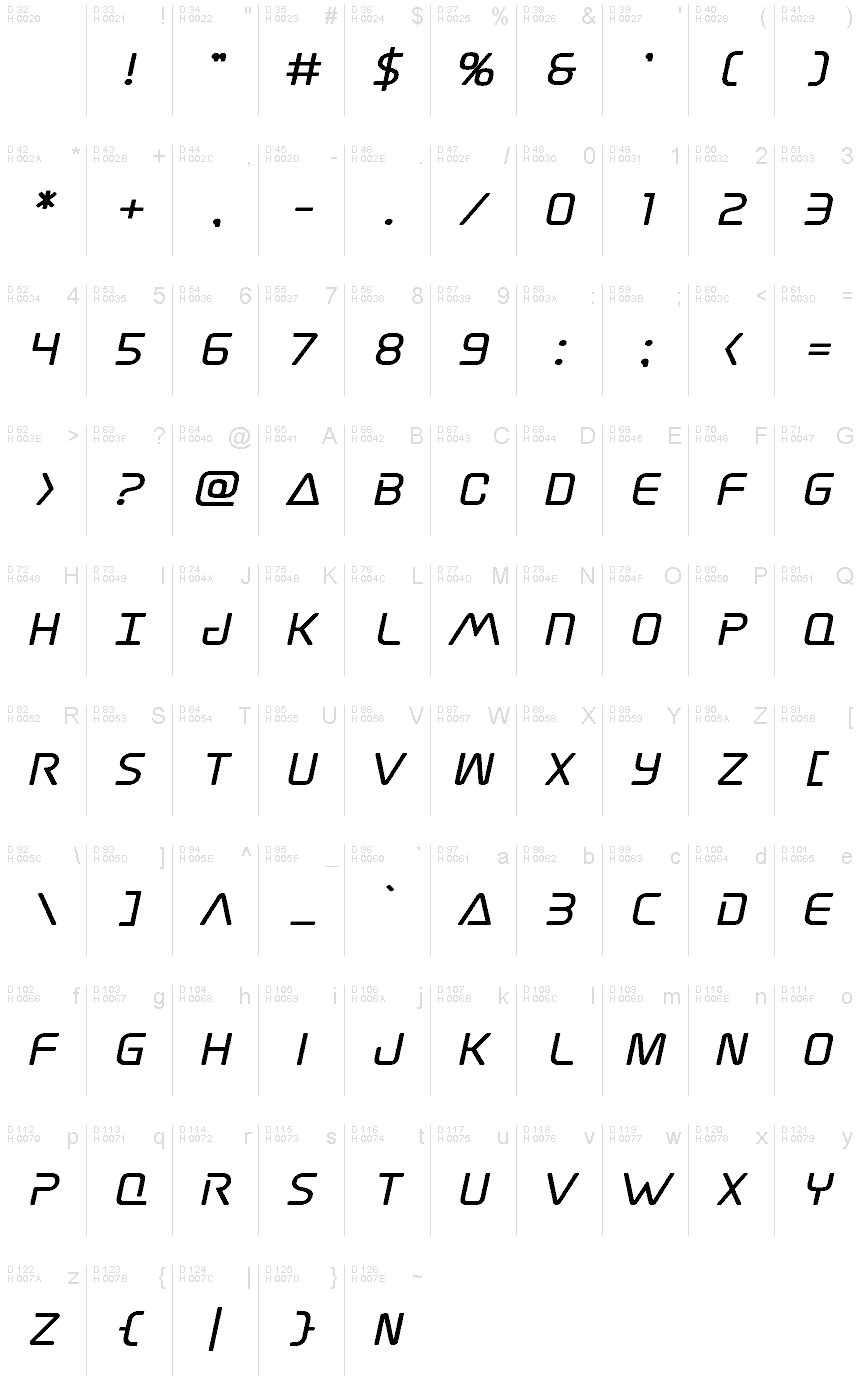
Elite Danger Bold Expand Ital
Elite Danger Bold Expand Italic brings a bold presence to any design. Its appearance lends itself easily to modern poster design, t-shirt graphics, headlines, and packaging design. Its playful, futuristic spirit and unique structure also make it useful for movie posters, comic book covers, and magazine headlines, whereas the font’s geometric feel can make its way onto luxury clothing labels, cosmetics branding and packaging design, branding typography, invitation cards, invitation flyers, presentation templates, web graphics, UI, etc. And even if these examples don’t pique your interest, you can still check out the font’s special characters, glyphs, swashes, alternates, and contextual alternates for more creative design possibilities.